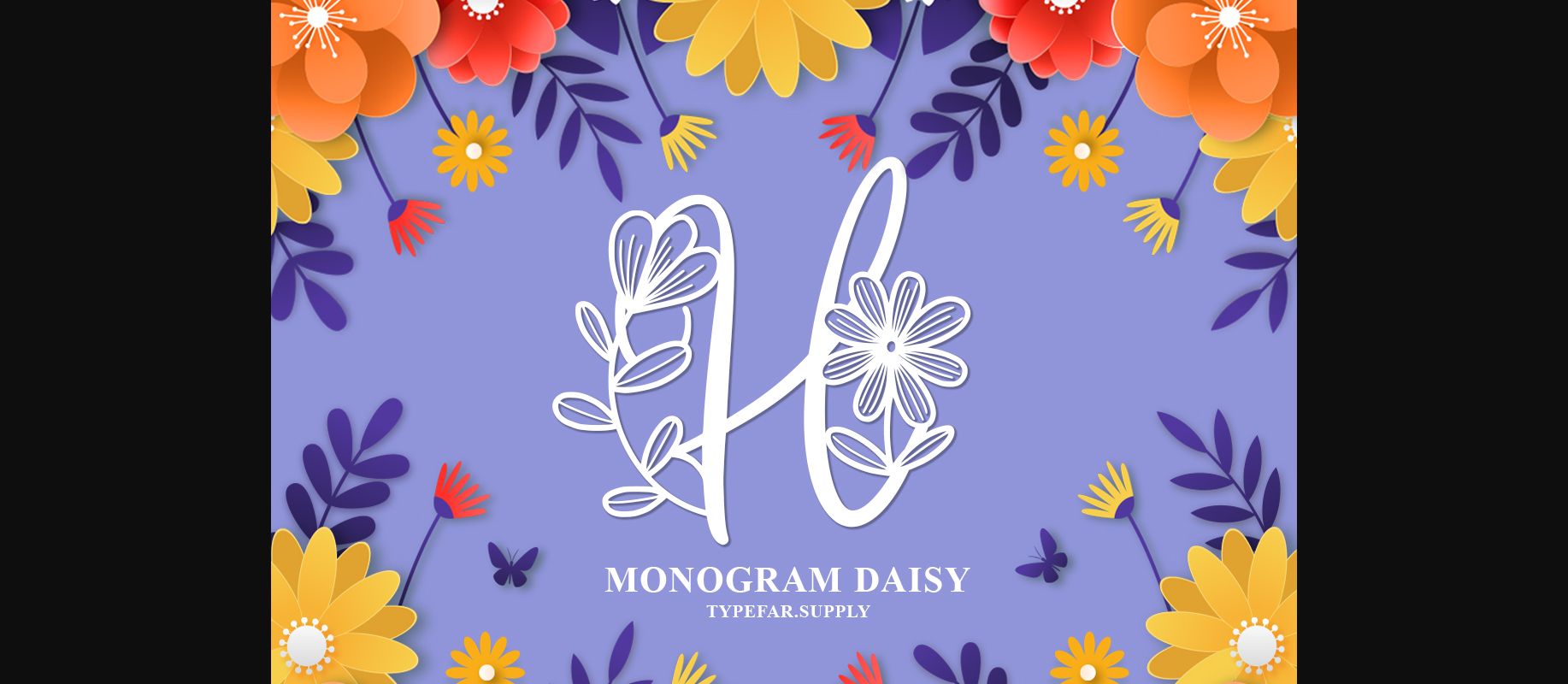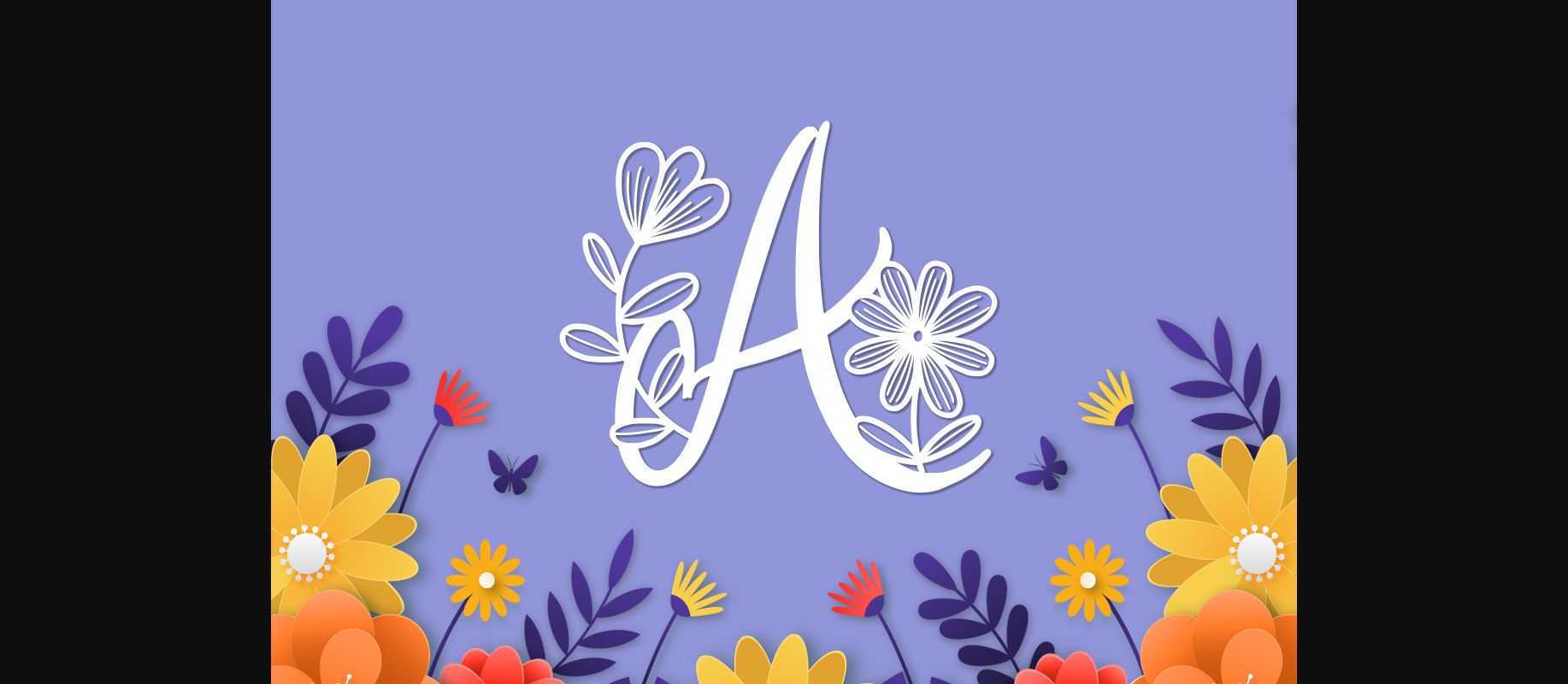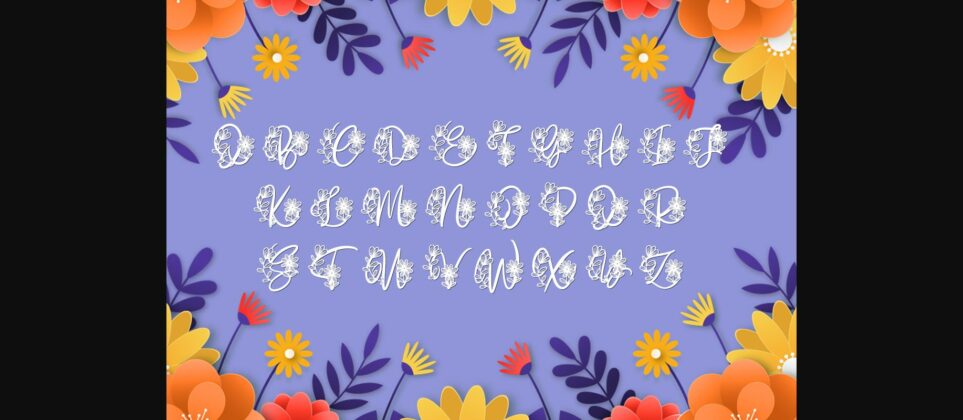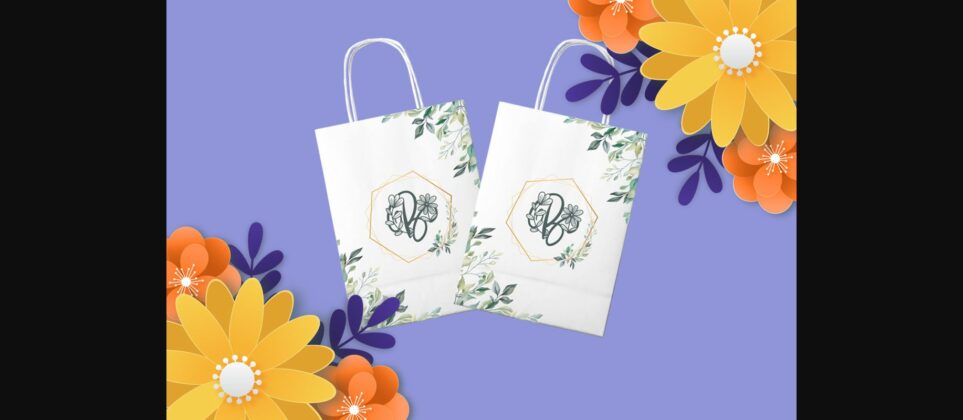
Monogram Daisy Font
About Monogram Daisy Font
Monogram Daishy simplifies elegance into one truly outstanding decorative font. This font is the perfect fit for all of your logos, branding, social media, and crafty DIY projects.